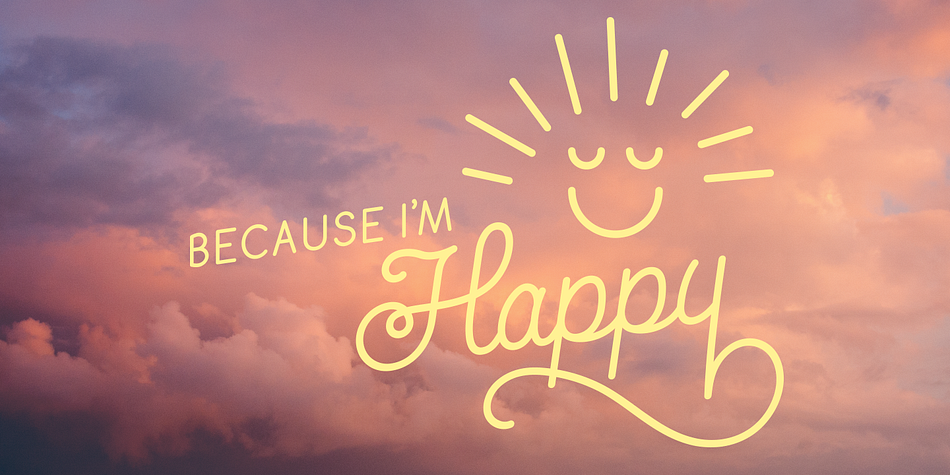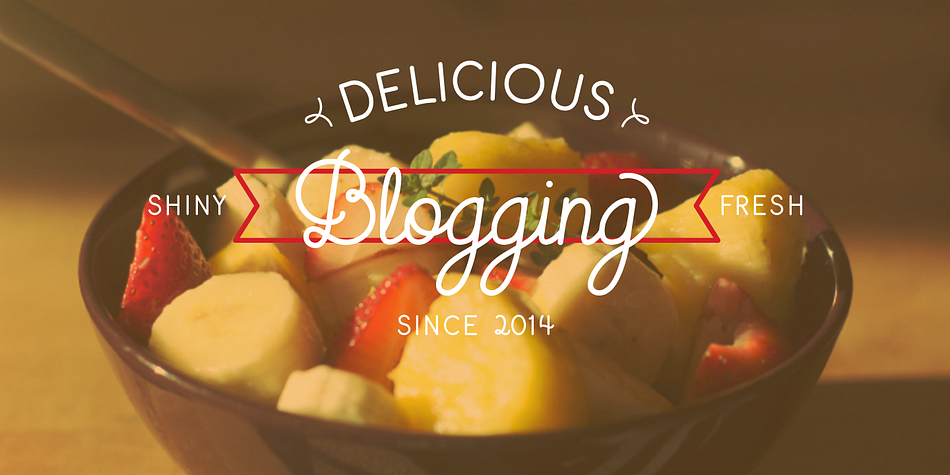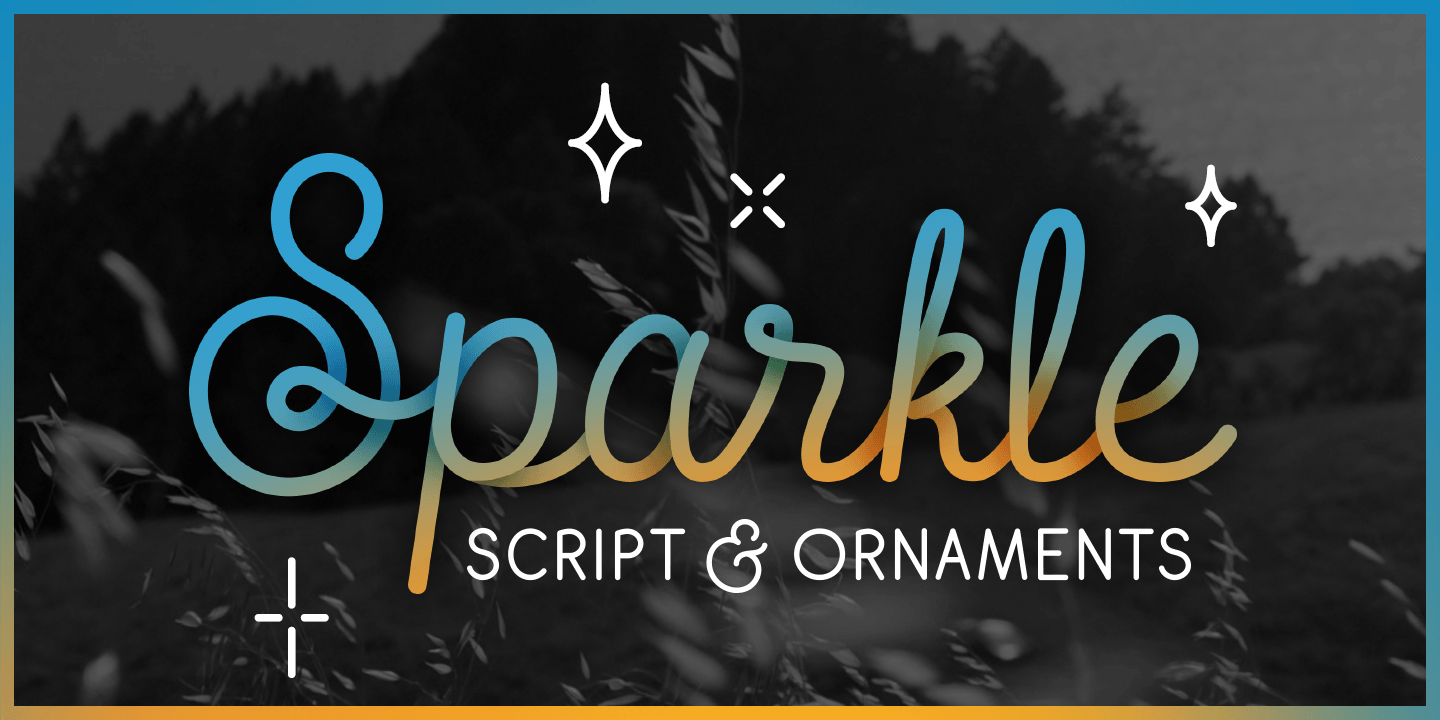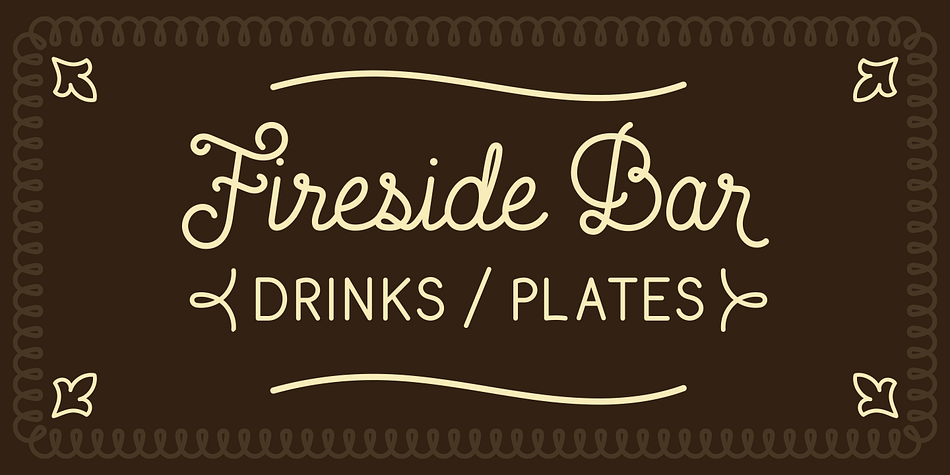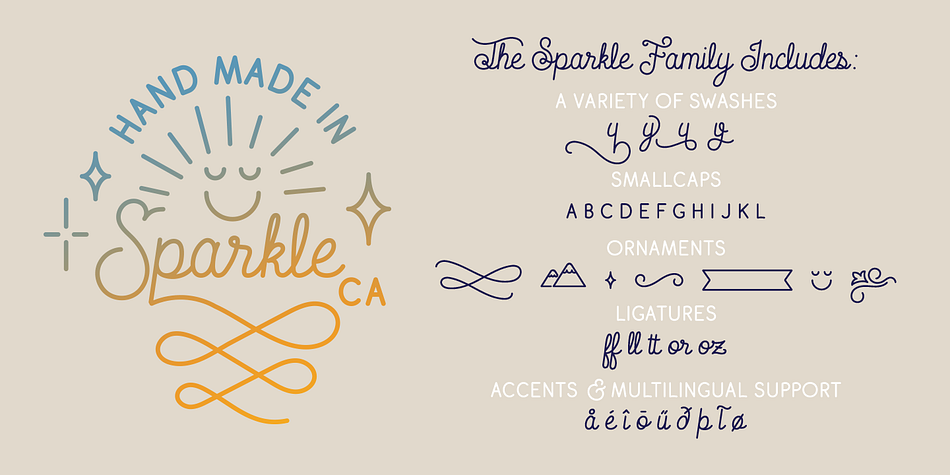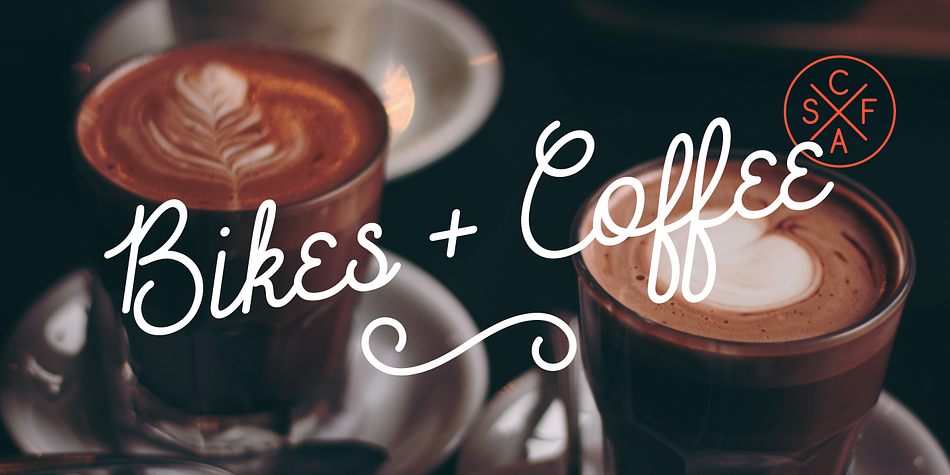
Sparkle is a dingbat, hand drawn and script font family. This typeface has two styles and was published by Ryan Keightley.
Sparkle is an expressive yet legible monoline font, benefiting from OpenType with nearly 800 glyphs for alternate letterforms, smooth ligatures, complimentary sans-serif small caps, accents, and a variety of swashes.